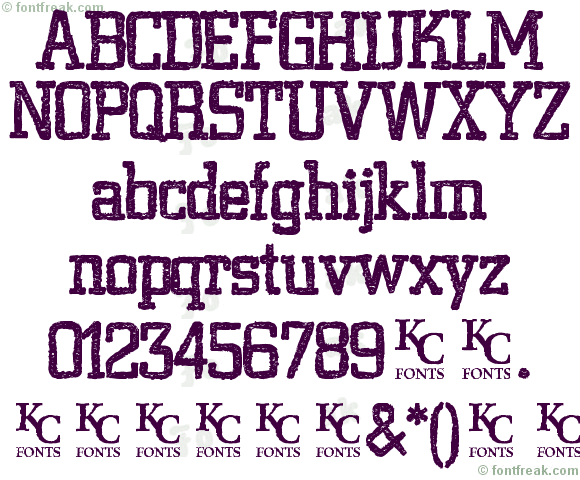
Varsity Playbook
About Varsity Playbook
Varsity Playbook is a distinctive display font designed by Kevin Christopher, embodying a playful and casual aesthetic that captures the spirit of athleticism and team spirit. This font falls into the decorative category, characterized by its textured strokes and a slightly rugged appearance that lends a sense of authenticity and charm. The stroke weight varies throughout, creating a visually engaging contrast that enhances its dynamic character. The spacing is thoughtfully designed to maintain legibility while allowing for creative expression in various applications.
Ideal for a range of uses, Varsity Playbook shines in environments that celebrate sports, competition, and camaraderie. It is perfect for designing spirited team jerseys, dynamic promotional materials for sporting events, or eye-catching posters for youth leagues. This font also works wonderfully for casual event invitations, such as birthday parties or school reunions, where a fun and approachable feel is desired. Small business owners in the sports industry, such as gym owners, fitness trainers, or sports apparel retailers, will find this font particularly appealing for branding and advertising needs.
Graphic designers and content creators seeking a font that stands out will appreciate the unique personality that Varsity Playbook brings to their projects. The font's rugged yet playful design makes it versatile, lending itself to both printed and digital media with ease.
In conclusion, Varsity Playbook font free download offers an exciting opportunity for anyone looking to infuse their work with a sense of energy and enthusiasm. Its distinctive style, combined with its practical applications, makes it a standout choice for those wanting to leave a memorable impression. Whether for personal or professional use, this font is sure to resonate with anyone who values creativity and individuality.